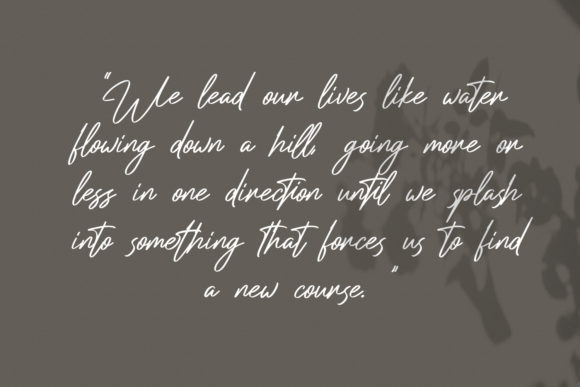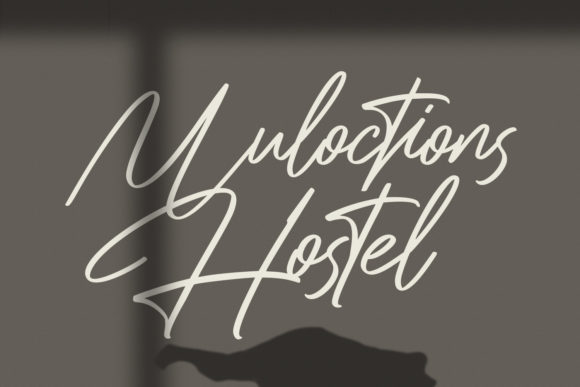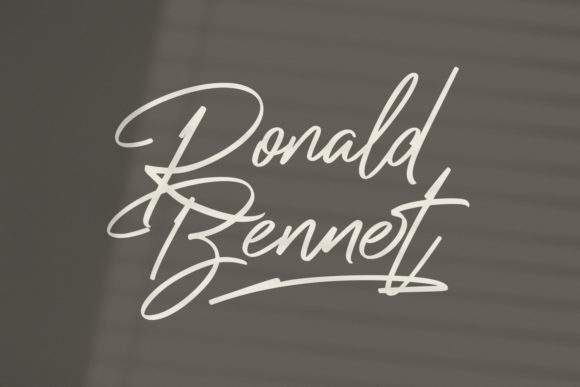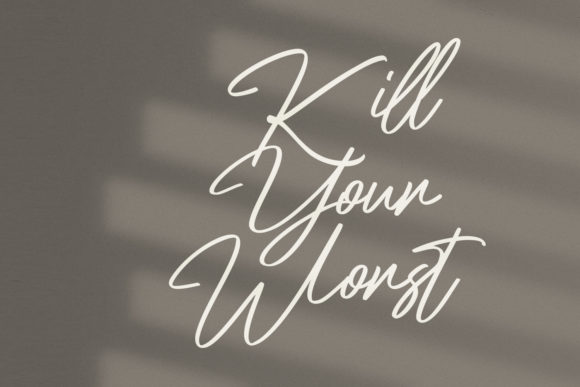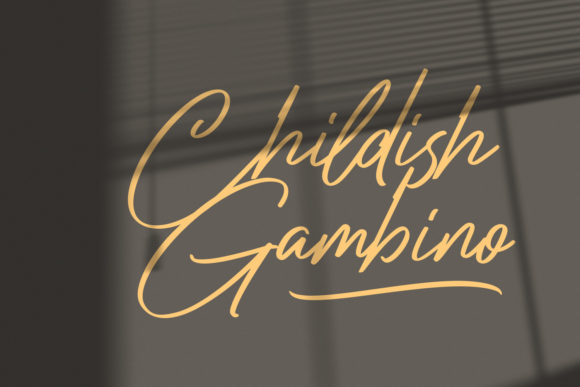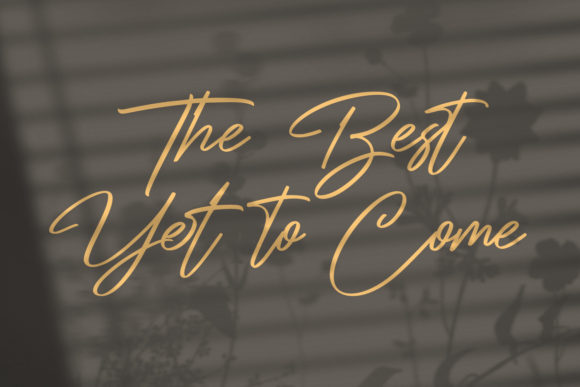
Introducing Discreates Font: The Ultimate Elegant and Charming Typeface
Are you a designer or crafter looking for a font that exudes elegance and charm? Look no further than Discreates Font! This beautiful typeface is perfect for adding a handwritten touch to a variety of designs, from wedding invitations and thank you cards to quotes, greeting cards, logos, and business cards.
A Font that Steals the Show
Discreates Font is a stunning script font that feels equally charming and elegant. Its unique and flowing design makes it perfect for designs that require a personal and sophisticated touch. Whether you’re creating a wedding invitation or a business card, Discreates Font is sure to impress.
Perfect for a Variety of Designs
One of the best things about Discreates Font is its versatility. It can be used for a wide range of designs, including:
- Wedding invitations: Add a touch of elegance and romance to your wedding invitations with Discreates Font.
- Thank you cards: Express your gratitude in style with this beautiful script font.
- Quotes: Make your quotes stand out with Discreates Font’s unique and flowing design.
- Greeting cards: Create beautiful and personalized greeting cards for any occasion.
- Logos: Add a touch of sophistication to your logo with Discreates Font.
- Business cards: Make a great impression with this elegant and charming font.
Why Choose Discreates Font?
So why choose Discreates Font over other script fonts? Here are just a few reasons:
- Unique and elegant design: Discreates Font is a one-of-a-kind typeface that will set your designs apart.
- Versatility: This font can be used for a wide range of designs, from wedding invitations to business cards.
- High-quality: Discreates Font is a high-quality typeface that is perfect for professional designs.
If you’re looking for a font that exudes elegance and charm, look no further than Discreates Font. This beautiful script font is perfect for adding a handwritten touch to a variety of designs, from wedding invitations and thank you cards to quotes, greeting cards, logos, and business cards. With its PUA encoding and unique design, Discreates Font is the perfect choice for designers and crafters who want to create stunning and professional designs.